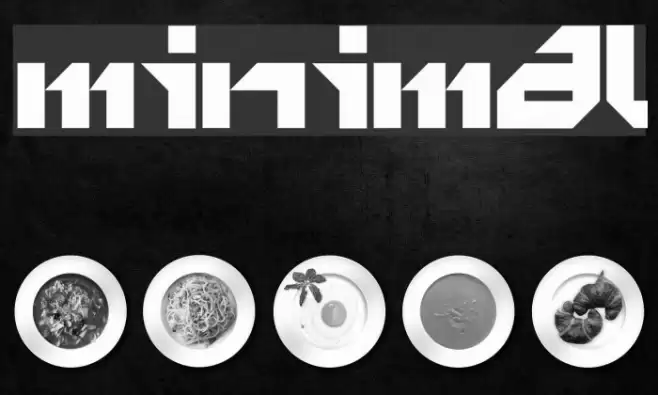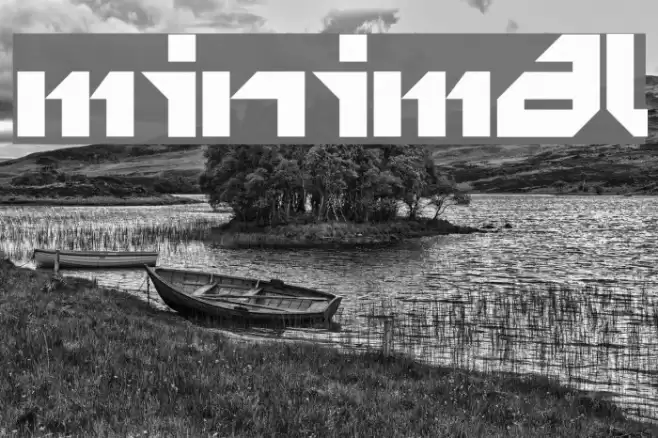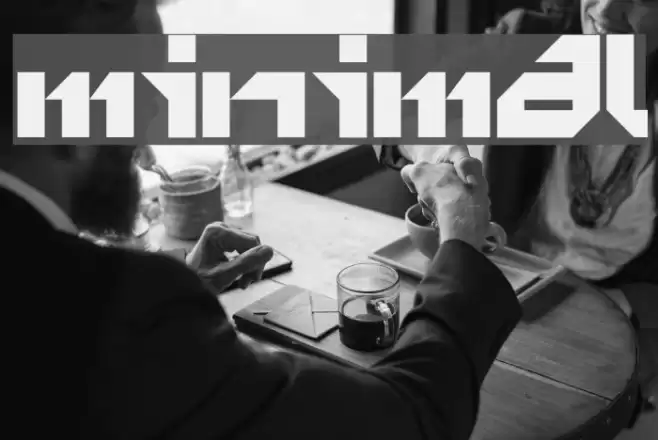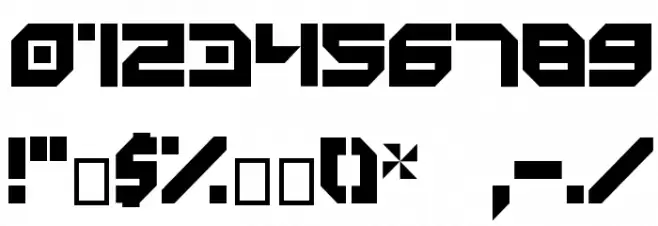
minimal Font
minimal Description
This font features a bold, geometric design with sharp angles and a futuristic aesthetic. Each character is constructed with a series of straight lines and angular cuts, giving it a distinct, edgy appearance. The uppercase letters are particularly striking, with a blocky, almost robotic look. The lowercase letters maintain the same angular style, ensuring consistency throughout the typeface. Numbers and special characters follow the same design principles, making the font suitable for digital and modern themes. The overall style is reminiscent of sci-fi and tech-oriented designs, making it ideal for projects that require a modern and innovative touch.
A bold, geometric font with sharp angles and a futuristic style from Futuristic fonts.
- Proposed Projects: Ideal for tech-themed posters, sci-fi book covers, video game graphics, and modern branding.